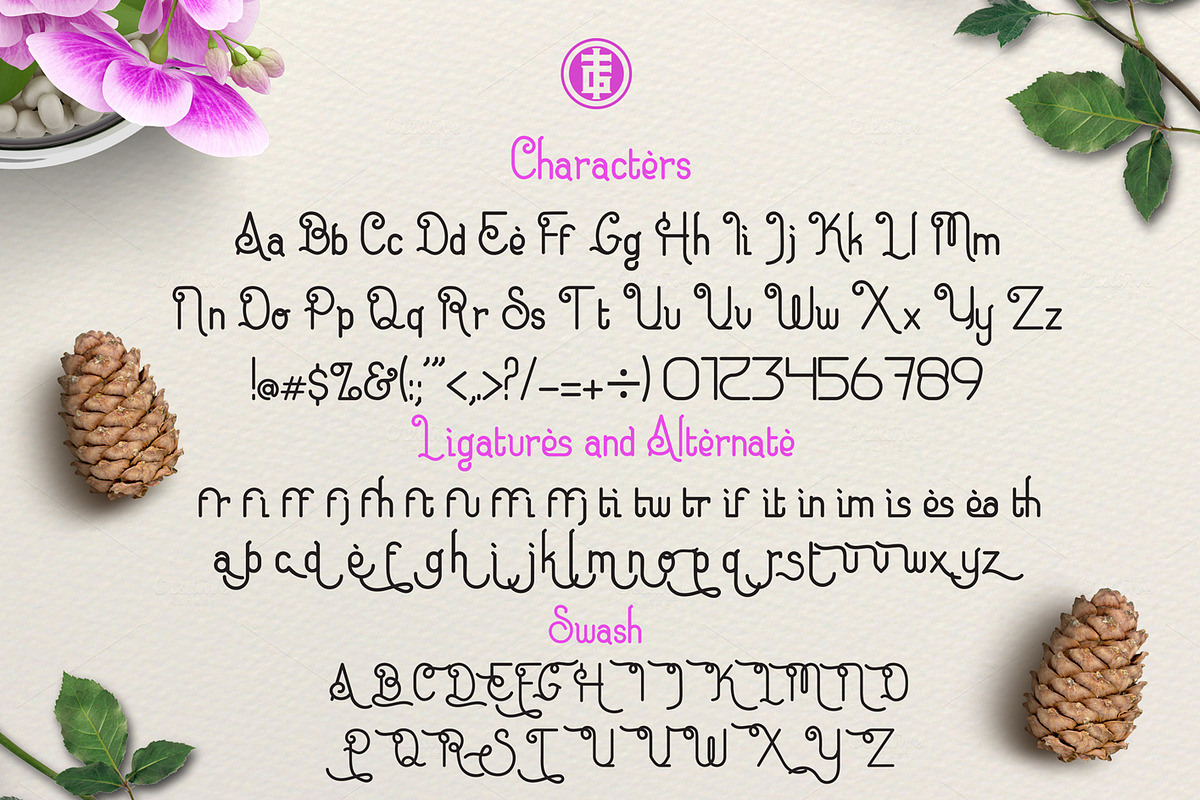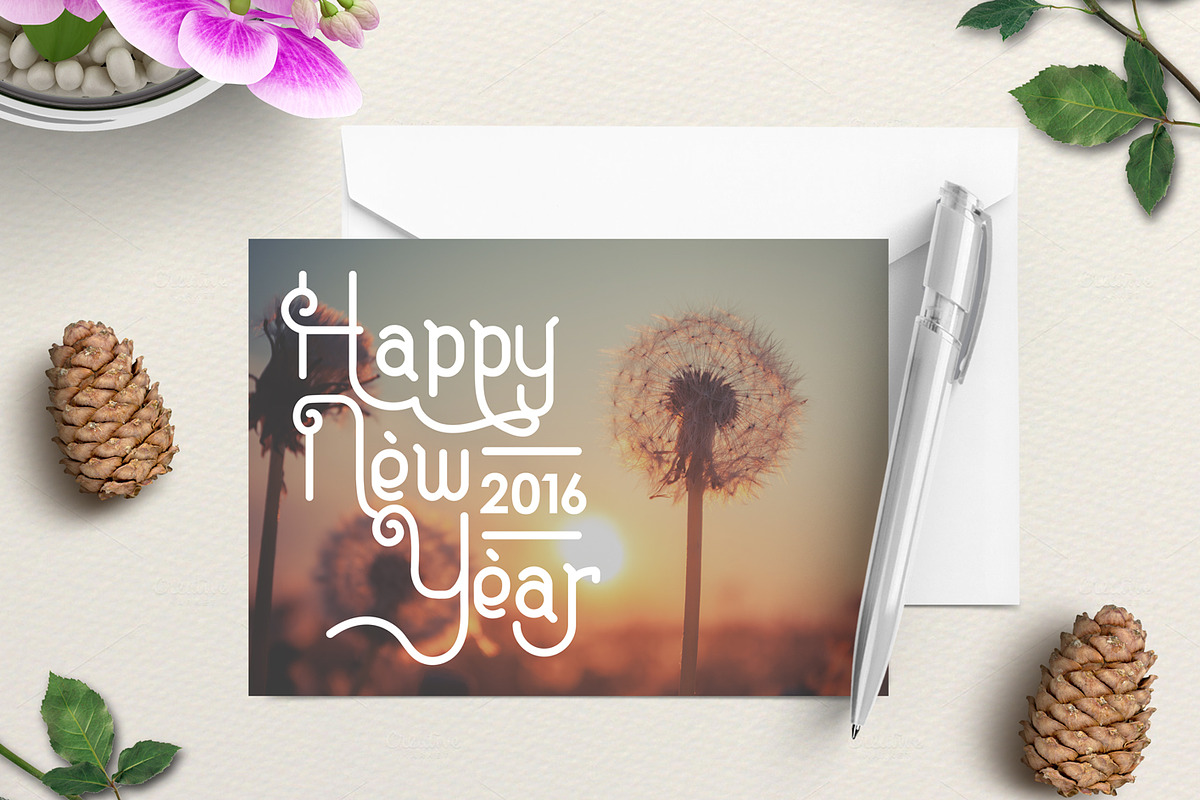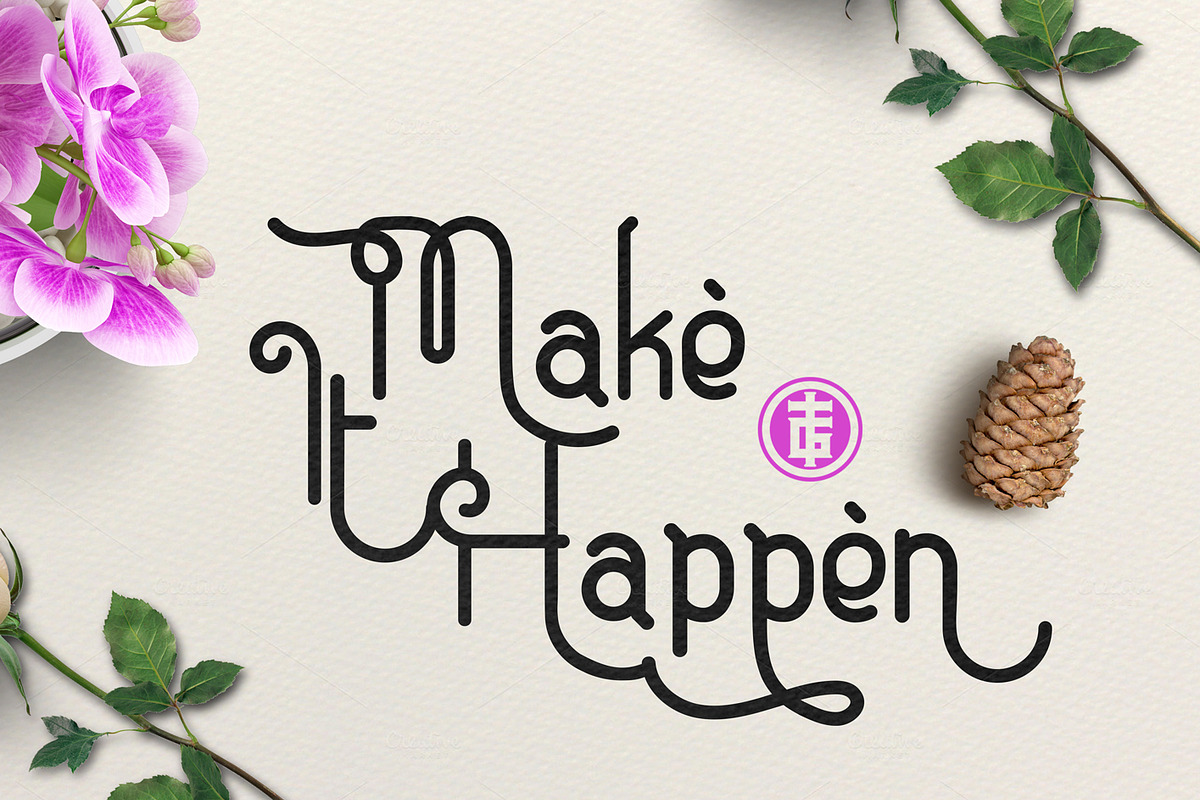
Eugiene Typeface
Eugiene Typeface by TGIF.STD is a font selected for branding, posters, packaging, typography.
- Font FeaturesUppercase, Lowercase, Numerals, Punctuations, Ligatures, Stylistic Alternates, Swash and Final form.
- Eugiene script
Why Eugiene Typeface is worth a look
Eugiene Typeface by TGIF.STD fits naturally into Branding, posters, packaging, typography.